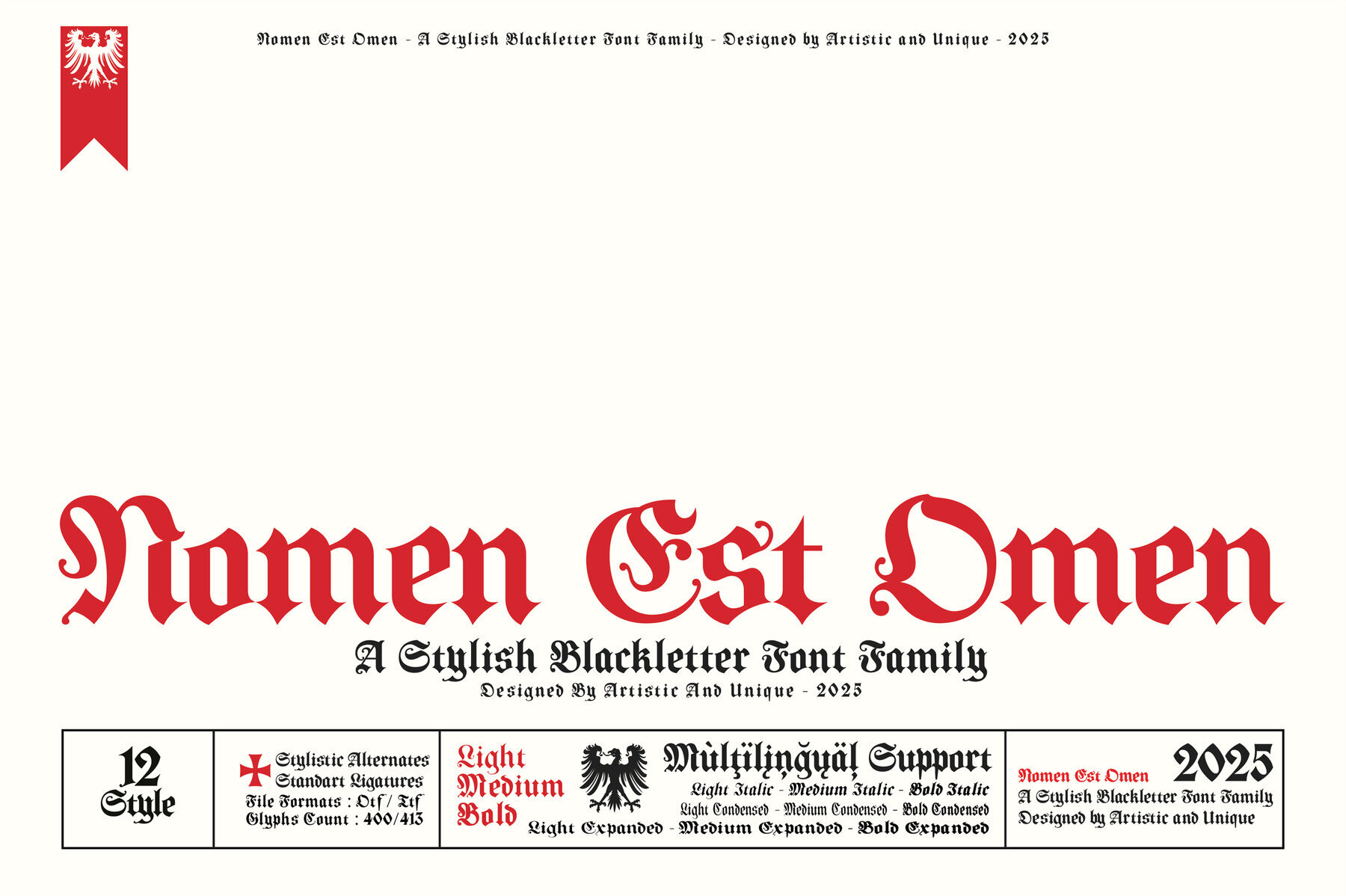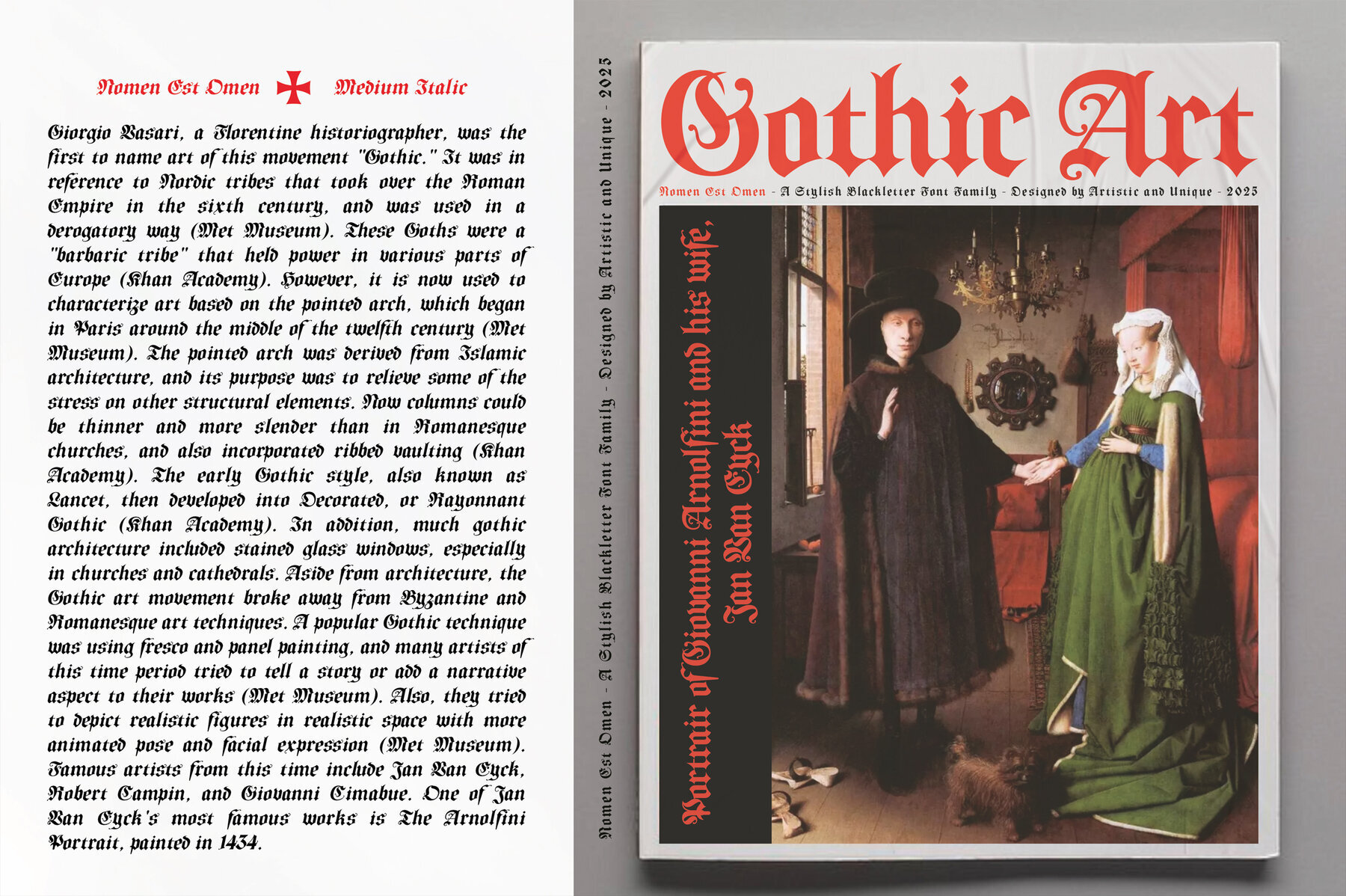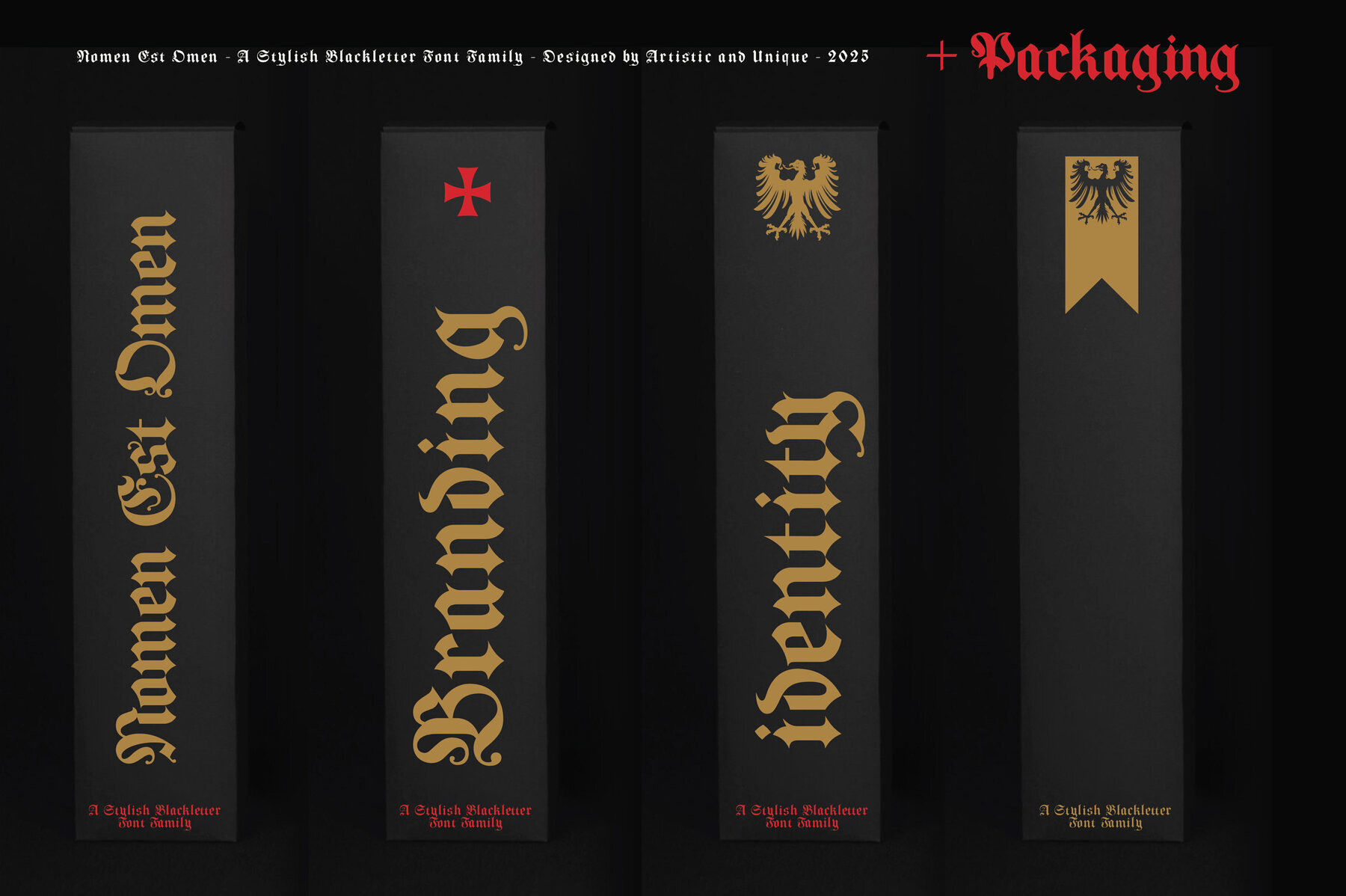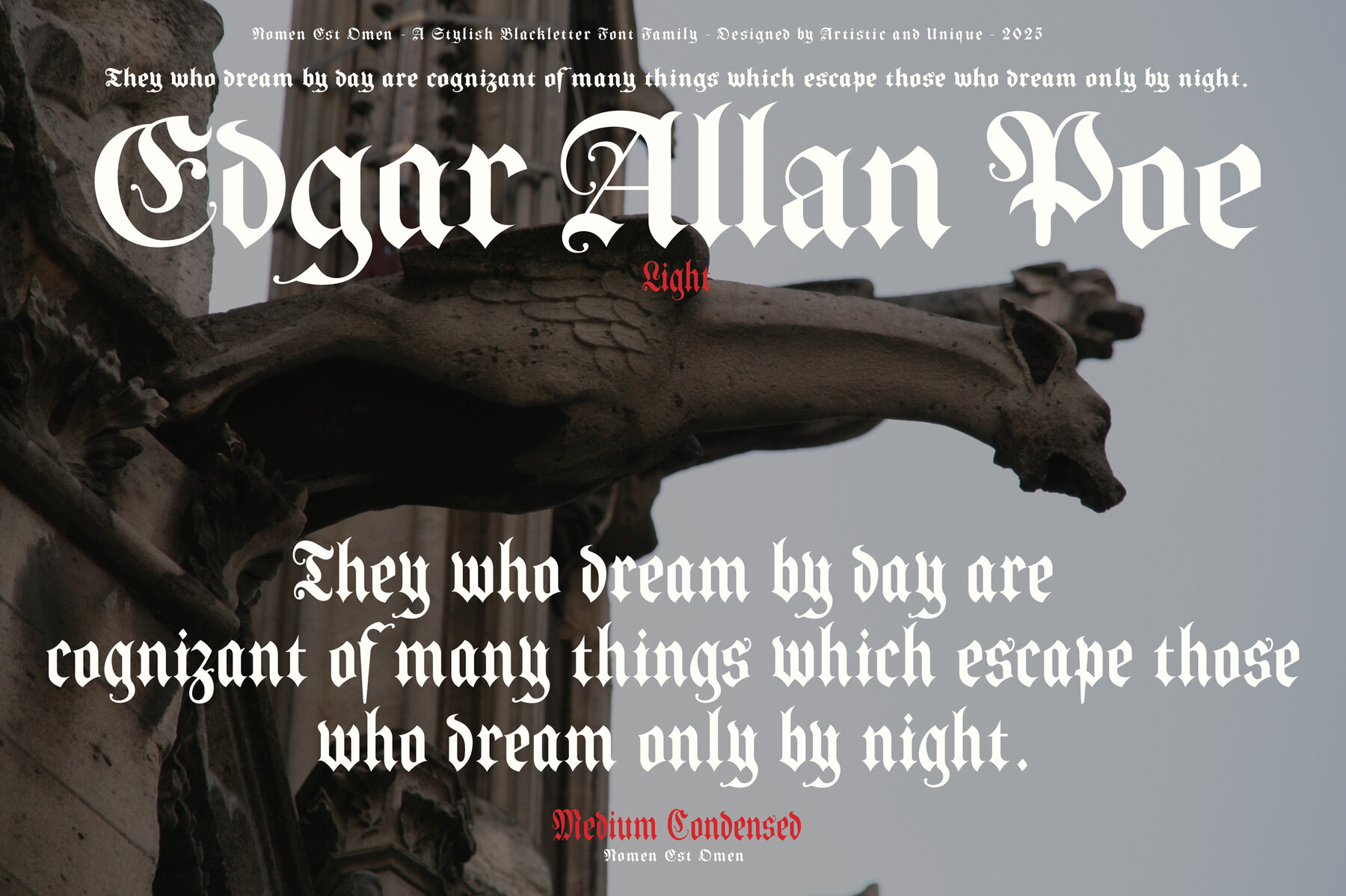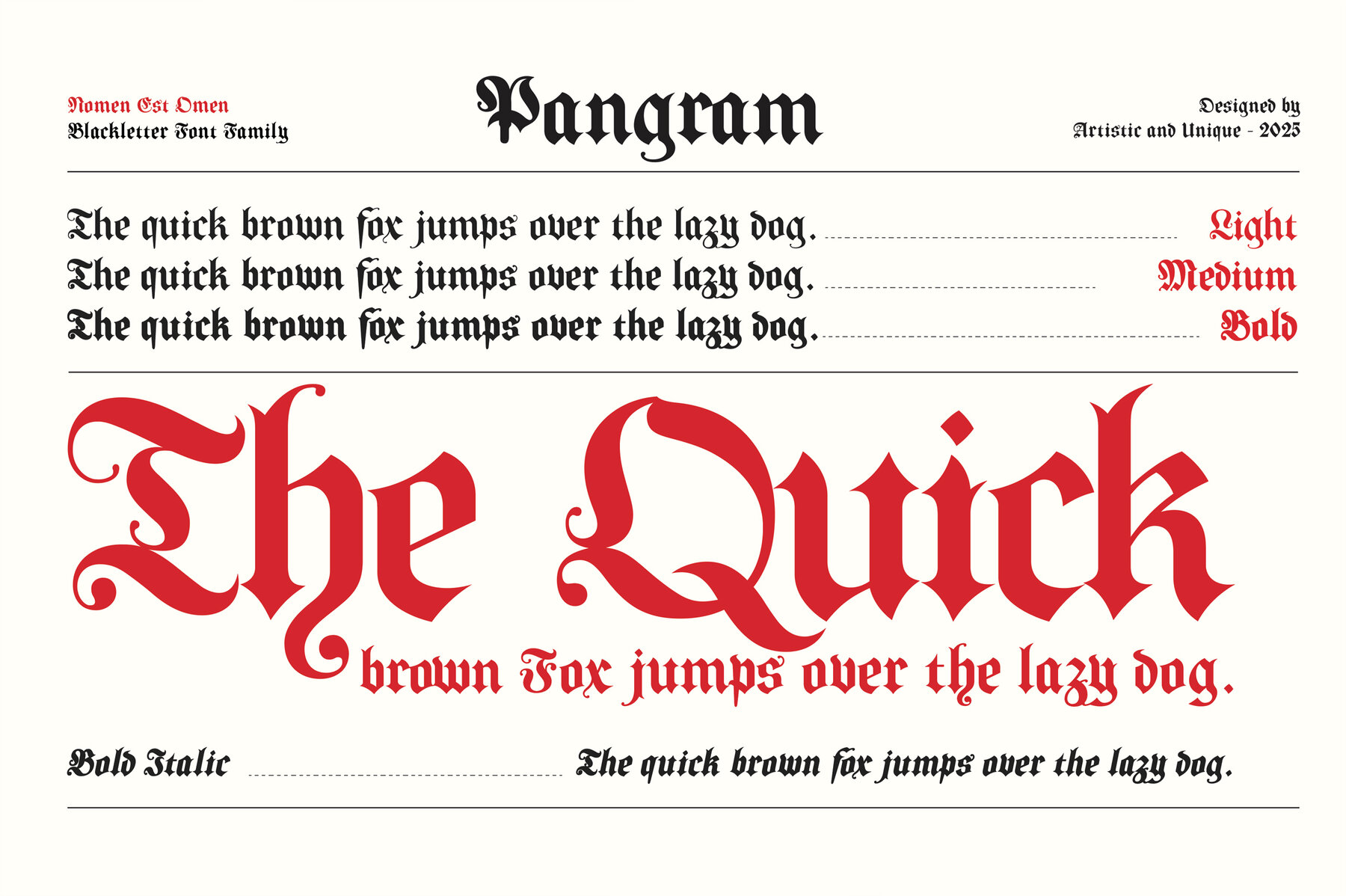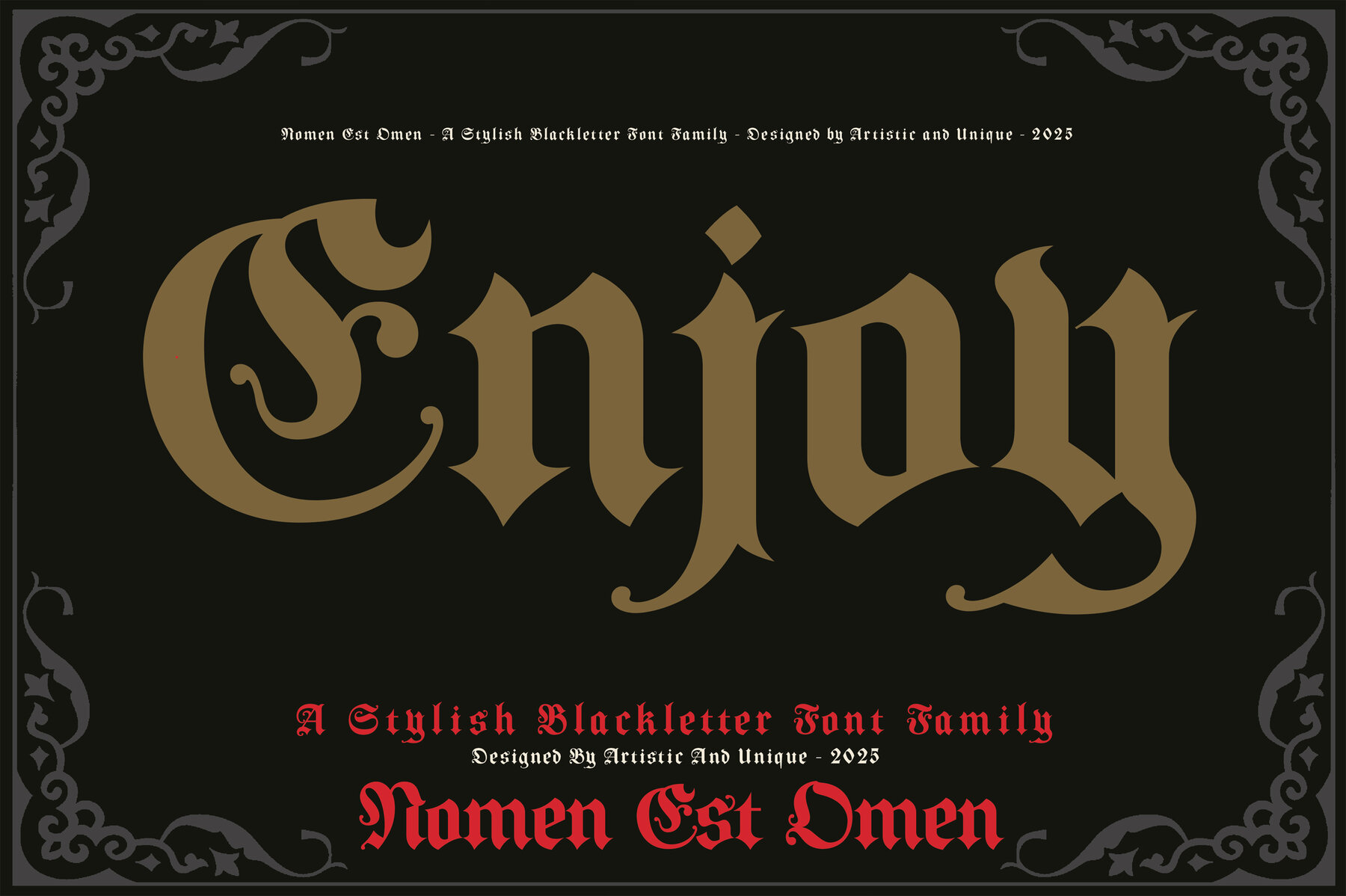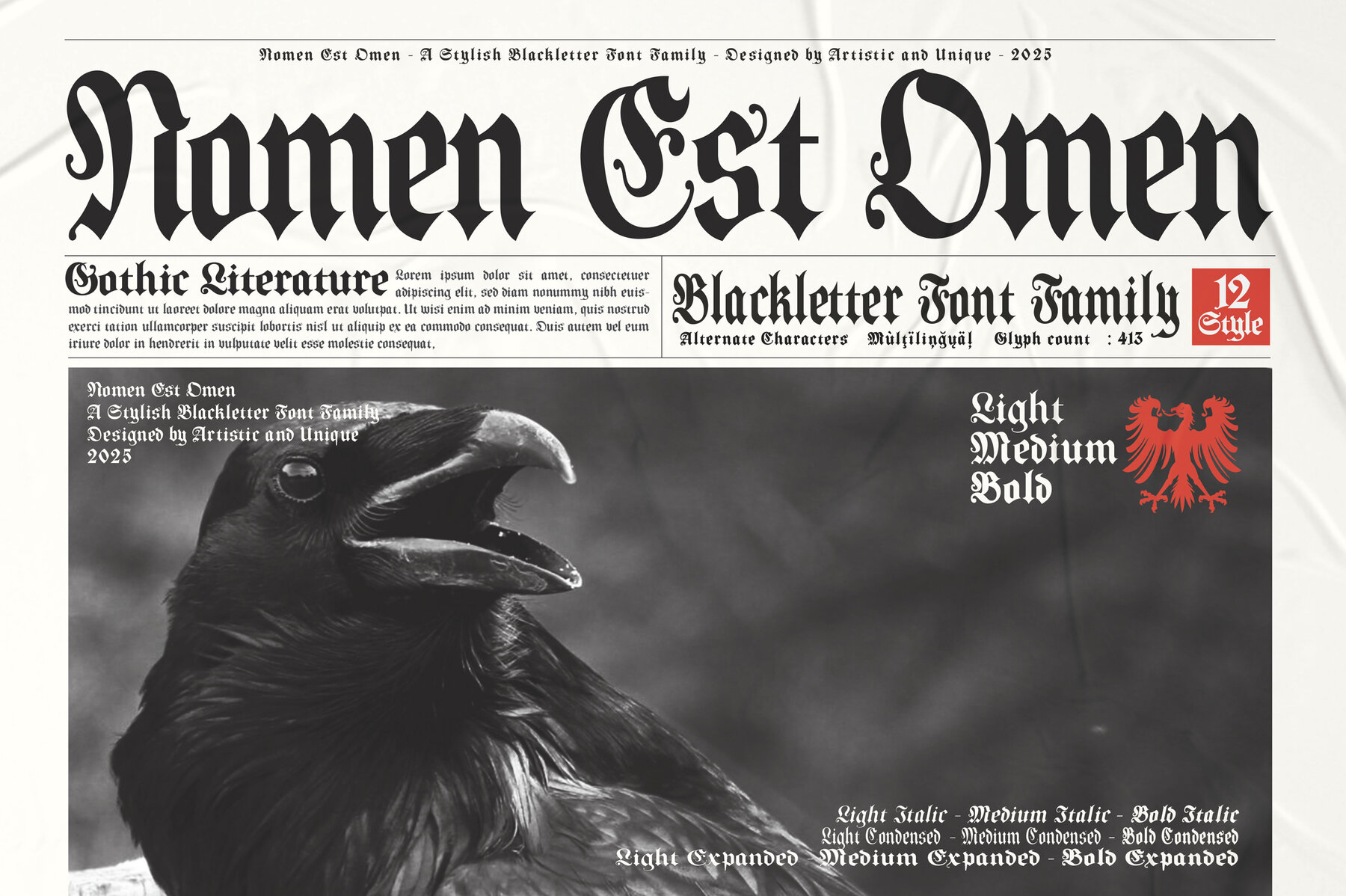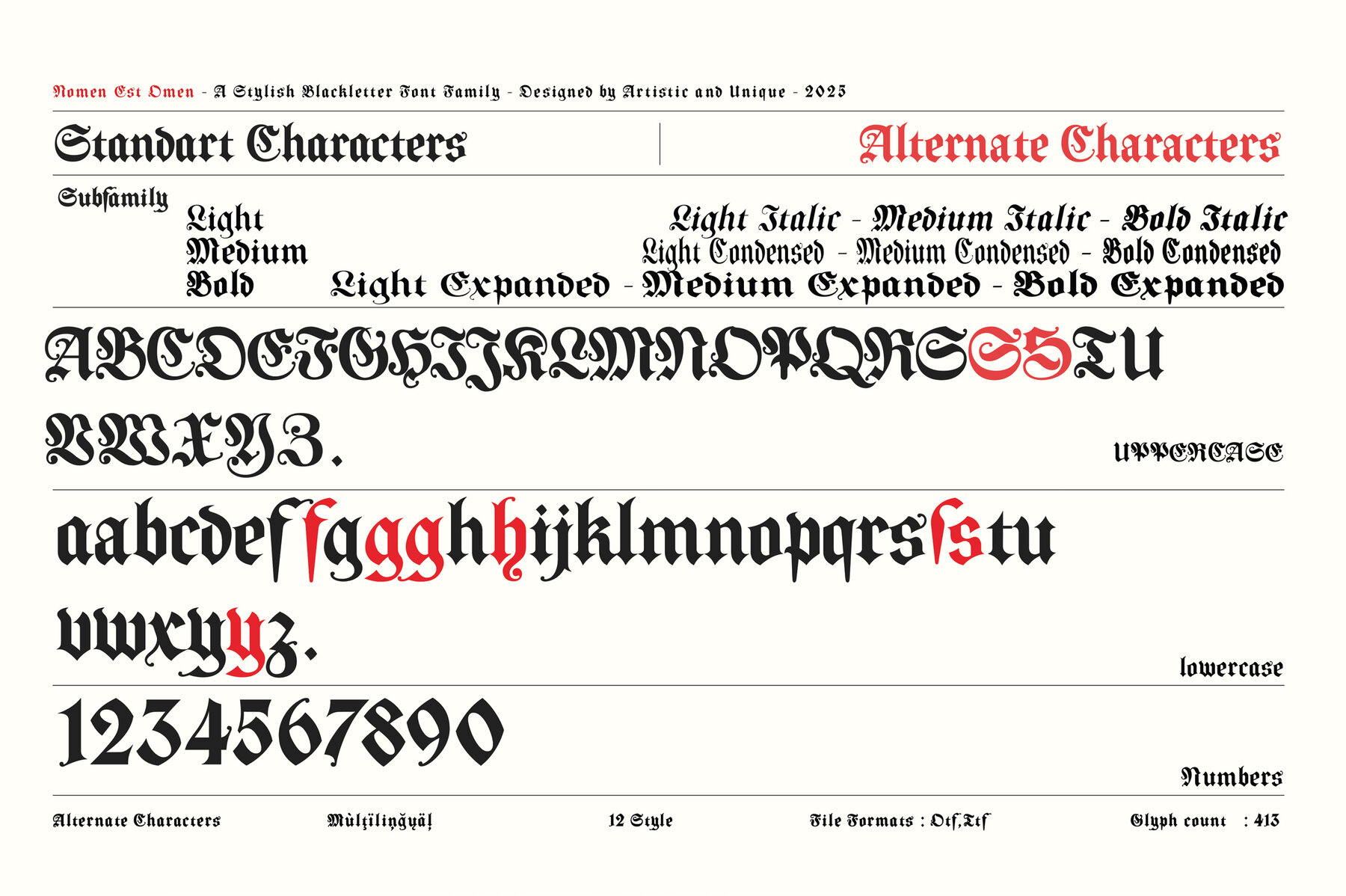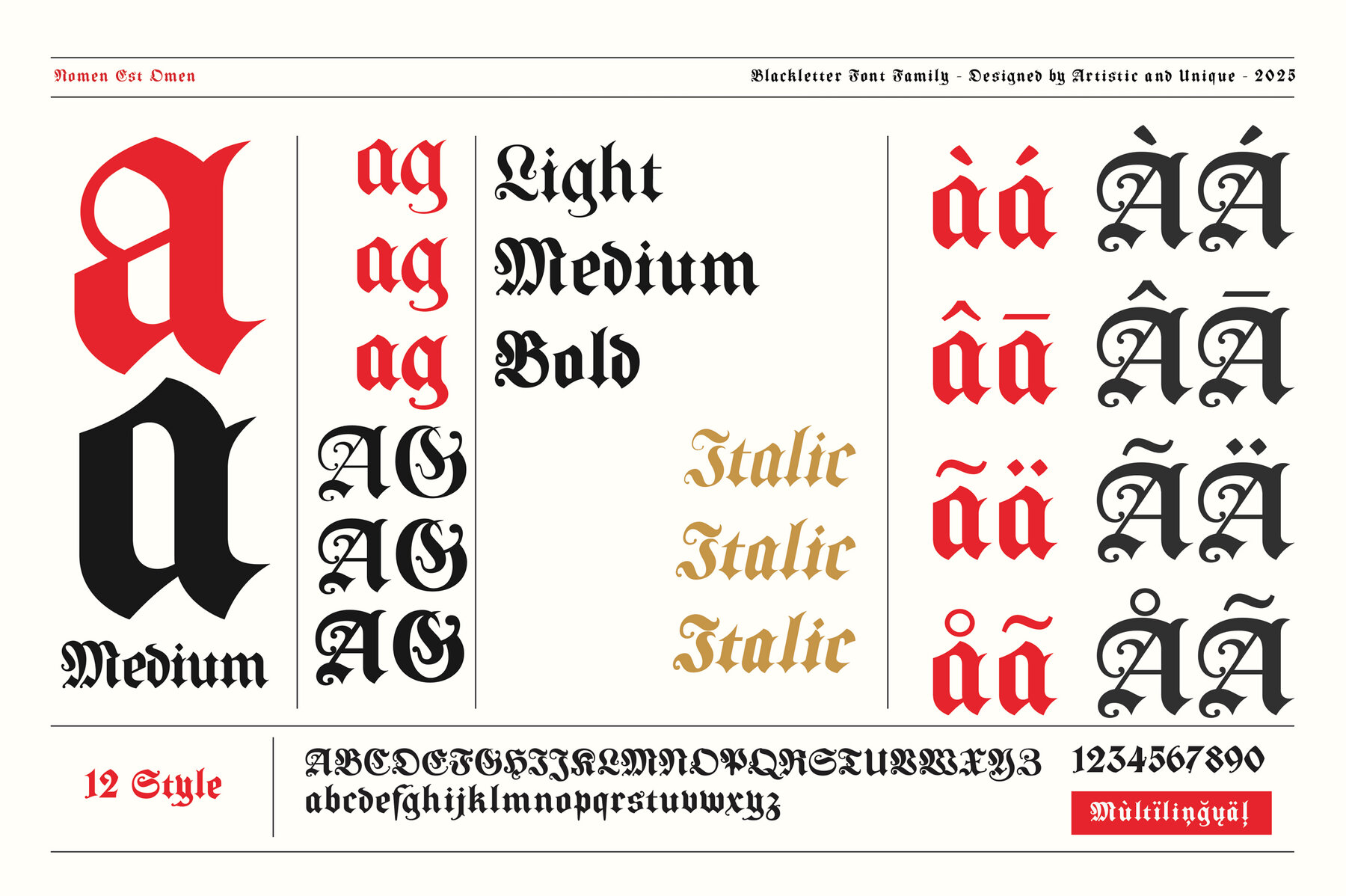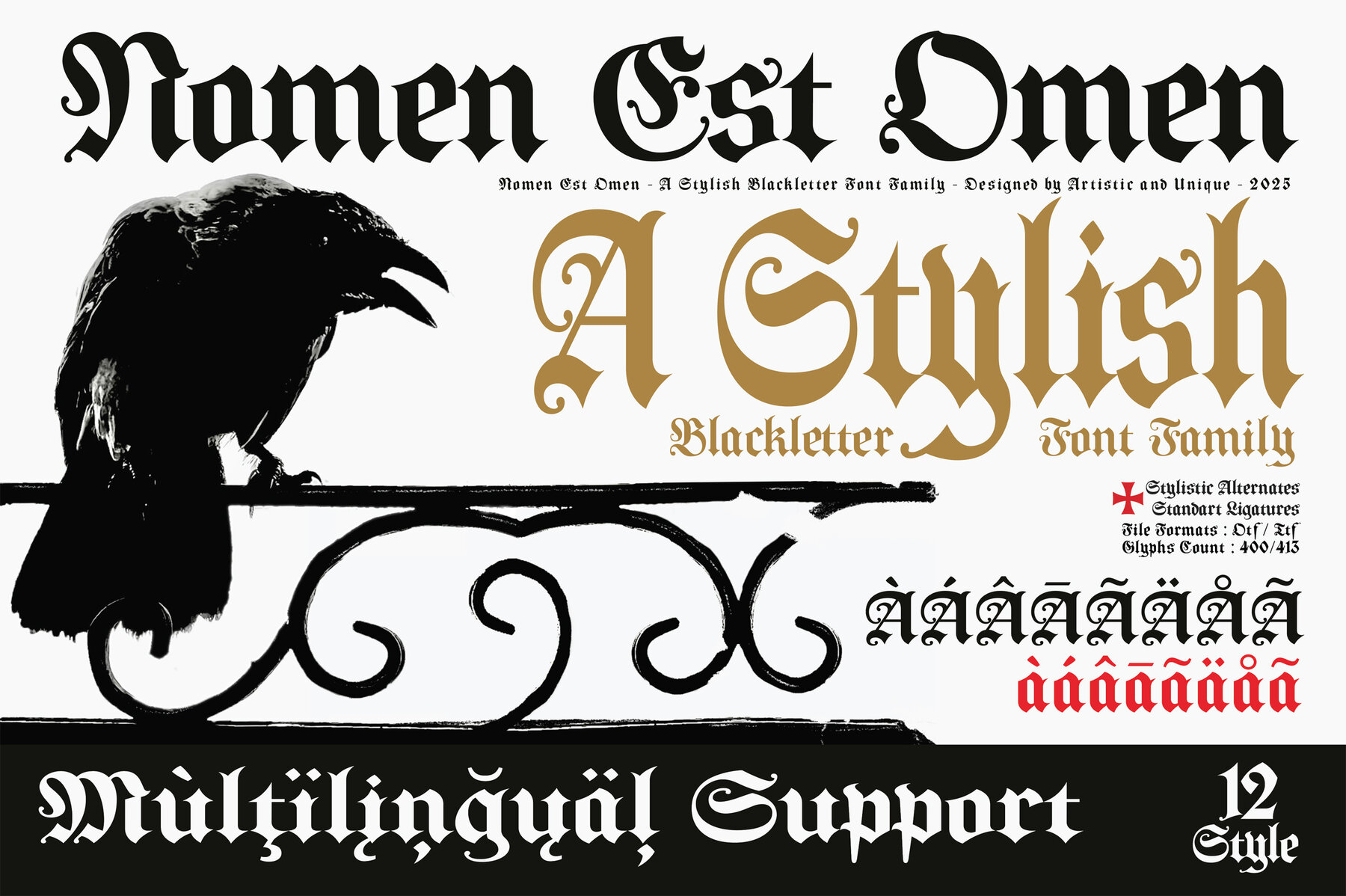
Nomen Est Omen Font
expand_font Nomen Est Omen Font Discover timeless elegance with Nomen Est Omen Blackletter Font Family. Elevate your designs with tradition and modernity. Blackletter,Gothic,Alternate Characters,Branding,Rough,Old Style,Old English,Historical,Ornamented,Vintage Explore Exceptional Fonts for Digital and Traditional Media Fontpath offers a large variety of fonts for every designer, all at affordable prices and in multiple formats. Browse our best in class fonts today for all your creative needs, you can find everything you need right here at our site! Fonts,sans,sans serif,retro,script,decorative,title,FontPath 20140312040223 Fontpath offers 200,000+ of the most professional fonts found online, start downloading today! Real-Time Font Discovery at Fontpath